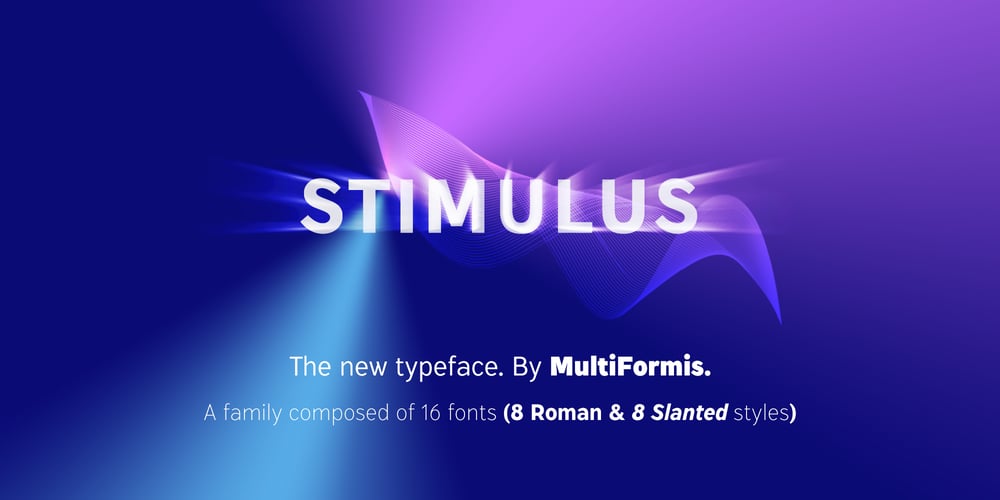
Stimulus Font Family was designed by Pedro Madeira and published by Multiformis. Stimulus contains 16 styles and family package options. Created following personal preferences, Stimulus gathers some styling elements of some of my favorite sans-serif typefaces. It was designed with the intention of being a slightly narrow, high x-height, clean-looking typeface for general purposes, from branding to websites or even resumes (Curriculum Vitae) or Social Media. Its slick design characteristics makes it stand out.The fonts in this family include alternative glyphs, common ligatures and some less common glyphs, namely the infinity symbol and the “Euro” and “Estimated” symbols, drawn according to the official specifications (the official “Euro” comes as an alternative glyph).